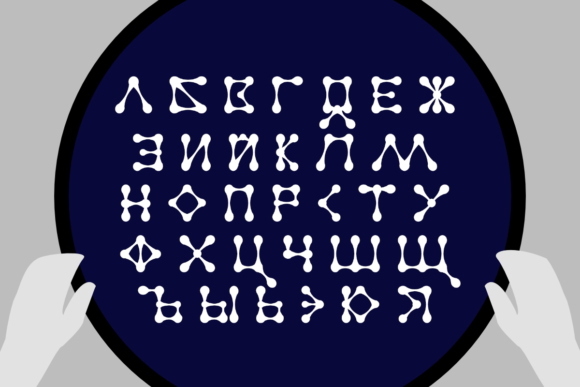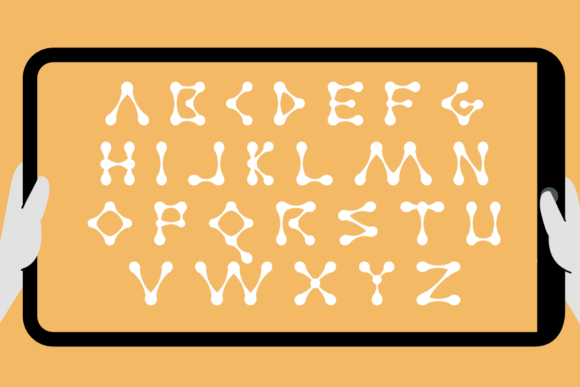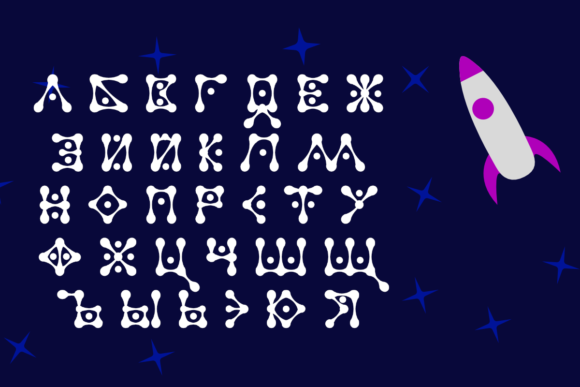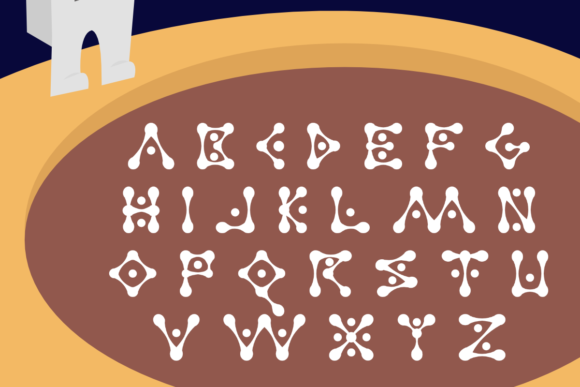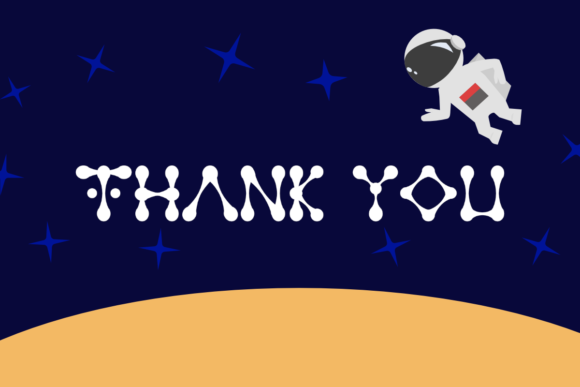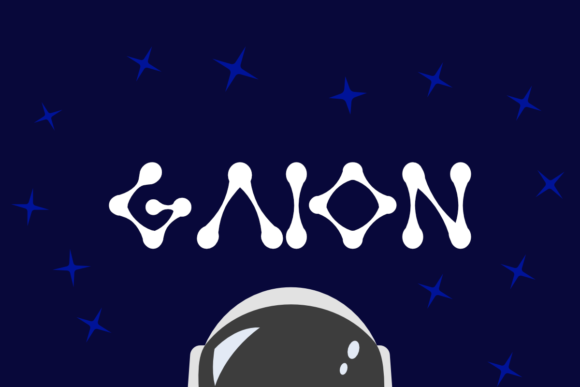
Unleash Your Creativity with Gaion Font: A Unique Decorative Font
Are you tired of using the same old fonts for your creative projects? Look no further than Gaion Font, an interesting and incredibly unique decorative font that is sure to make your ideas stand out. In this article, we’ll dive into the world of Gaion Font and explore its features, benefits, and uses, providing you with all the information you need to take your designs to the next level.
What is Gaion Font?
Gaion Font is a decorative font that is unlike any other. Its unique design and intricate details make it a standout in the world of typography. Whether you’re a designer, crafter, or simply someone who loves to dabble in creative projects, Gaion Font is sure to captivate your audience and leave a lasting impression.
Features of Gaion Font
So, what makes Gaion Font so special? Here are just a few of its key features:
- Unique Design: Gaion Font boasts a one-of-a-kind design that is sure to turn heads. Its intricate details and decorative elements make it a true standout in the world of typography.
- Versatility: Despite its unique design, Gaion Font is incredibly versatile and can be used for a wide range of creative projects, from invitations and posters to logos and branding materials.
Benefits of Using Gaion Font
So, why should you choose Gaion Font for your creative projects? Here are just a few of the benefits of using this unique decorative font:
- Stand Out from the Crowd: With Gaion Font, you’ll be able to create designs that are truly unique and eye-catching. Whether you’re competing for attention in a crowded market or simply want to make a statement, Gaion Font is the perfect choice.
- Add a Touch of Elegance: Gaion Font is perfect for adding a touch of elegance and sophistication to your designs. Its intricate details and decorative elements make it a great choice for high-end branding and marketing materials.
- Endless Creative Possibilities: With Gaion Font, the creative possibilities are endless. Use it to create stunning invitations, posters, logos, and more, or experiment with different design elements to create something truly unique.
Tips and Tricks for Using Gaion Font
Here are a few tips and tricks to help you get the most out of Gaion Font:
- Use it Sparingly: While Gaion Font is incredibly versatile, it’s best to use it sparingly to avoid overwhelming your design. Use it as an accent font to add a touch of elegance and sophistication.
- Experiment with Colors: Gaion Font looks great in a variety of colors, so don’t be afraid to experiment. Try out different colors and textures to create a truly unique design.
- Pair it with Other Fonts: Gaion Font pairs well with a variety of other fonts, so try pairing it with a simple sans-serif font to create a striking contrast.
In conclusion, Gaion Font is an interesting and incredibly unique decorative font that is sure to make your creative ideas stand out. With its intricate details, versatility, and ease of use, Gaion Font is the perfect choice for designers, crafters, and anyone who loves to dabble in creative projects. So why wait? Download Gaion Font today and start unleashing your creativity!